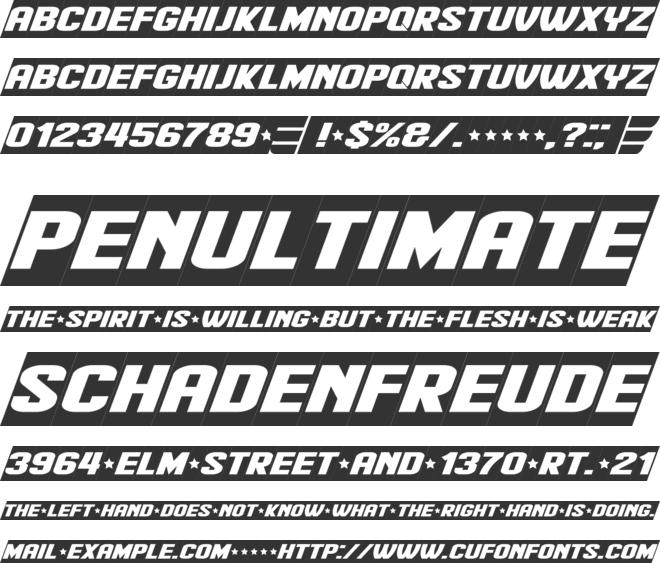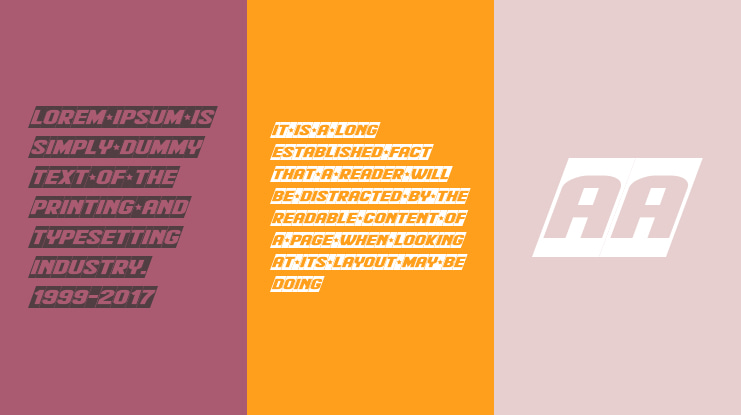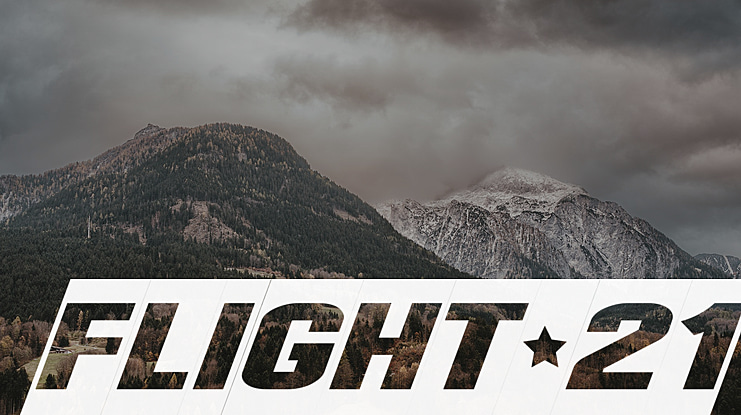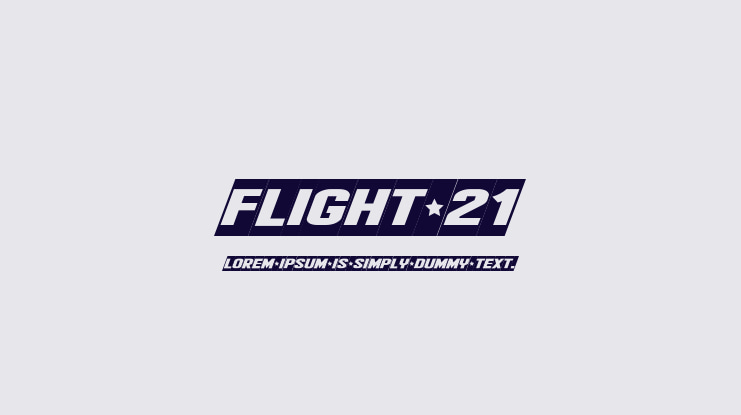
Flight 21 Font
Vladimir Nikolic
"Flight 21" is an awesome aviation-inspired font. Fall in love with its bold appearance! Free for personal use. For commercial use, please order a license here: https://www.creativefabrica.com/product/flight-21/ref/144265/